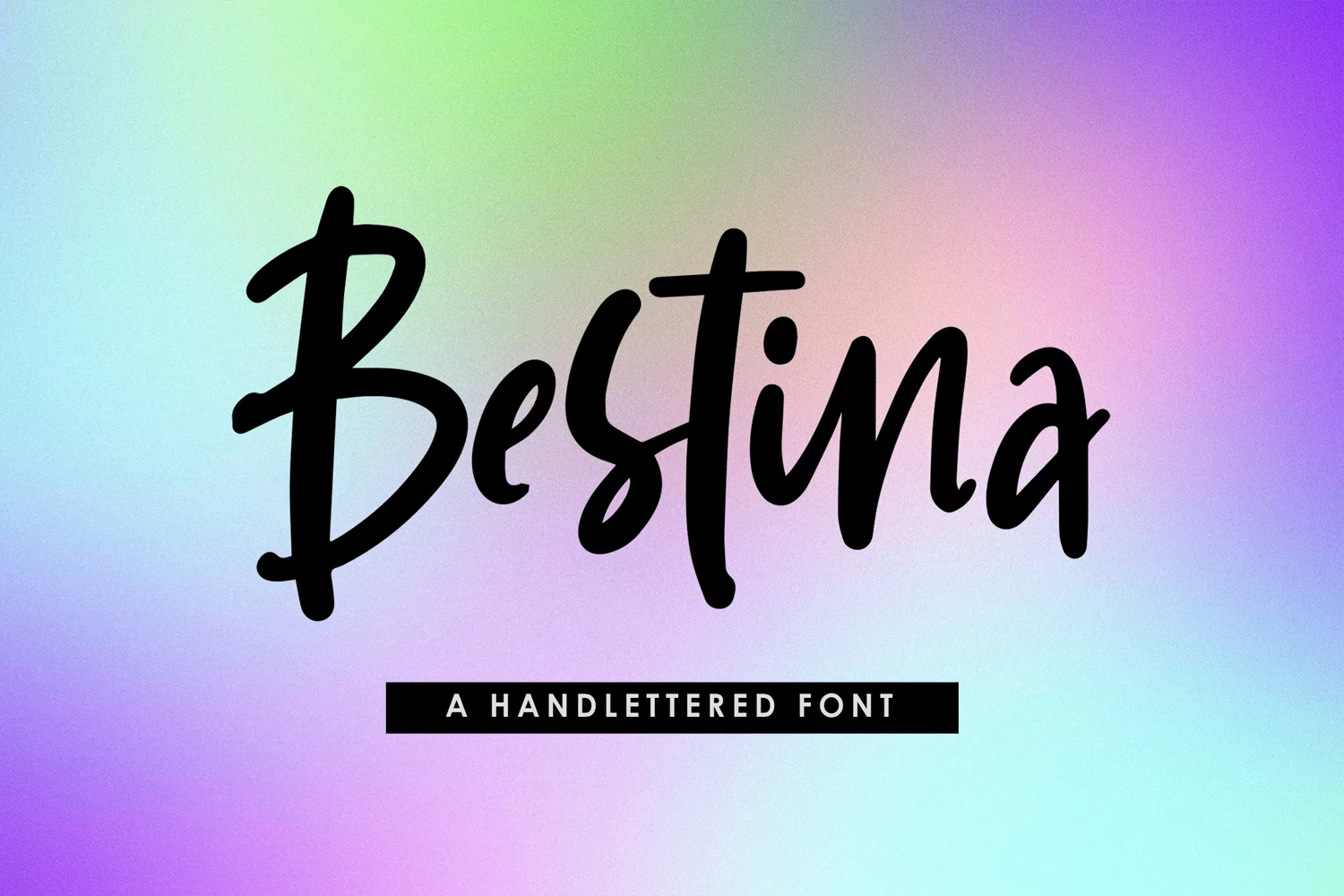
Bestina - A handlettered Font that contain lowercase, uppercase, symbol, and also support multi language. There’s a lot ligatures in this font. This Font also comes with ligatures, alternates and many more. this font suitable for fashion, branding, catalog and other design what you want.